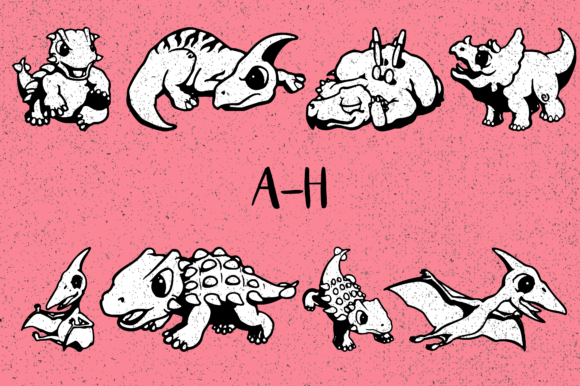
Dino is an enchanting and one-of-a-kind dingbats typeface that allows you to effortlessly create a world of dinosaurs in your designs. With a range of capital and small letter glyphs, this font unlocks the ability to generate a diverse collection of dinosaur doodles that will bring a prehistoric touch to any project.
Whether you’re working on a children’s book, educational materials, posters, or simply want to add a playful element to your design, Dino font has you covered. Each glyph represents a different dinosaur species, showcasing their unique features and characteristics.
From the mighty Tyrannosaurus Rex to the gentle Brachiosaurus, Dino font offers a wide variety of dinosaur doodles that capture the imagination. Each glyph is intricately designed to showcase the distinct traits of the dinosaurs, such as their size, shape, and iconic features like sharp teeth, long necks, and powerful tails.
The versatility of Dino font allows you to use it in various creative projects. For children’s books or educational materials, you can incorporate the dinosaur doodles to make learning about dinosaurs more engaging and memorable. The vibrant and friendly design of the glyphs will appeal to young readers and spark their curiosity about these fascinating creatures.
Additionally, Dino font is a great choice for posters or graphics related to paleontology, museums, or dinosaur-themed events. You can use the dinosaur doodles to create eye-catching visuals that capture the attention of both children and adults. Whether you want to create a playful and colorful design or opt for a more sophisticated and detailed approach, Dino font provides the flexibility to suit your artistic vision.
To use Dino font, simply type the capital or small letters corresponding to the dinosaur doodle you want to generate. The font’s unique and intricate designs will transform your text into captivating dinosaur illustrations, allowing you to unleash your creativity and bring a touch of the Jurassic era to your designs.
In conclusion, Dino is a beautiful and unique dingbats font that opens up a world of dinosaur doodles for your creative projects. Its versatile and captivating design makes it a perfect choice for children’s books, educational materials, posters, and more. So, dive into the realm of dinosaurs and let Dino font take your designs back in time to the age of these magnificent creatures.